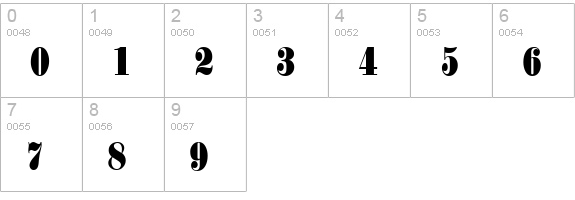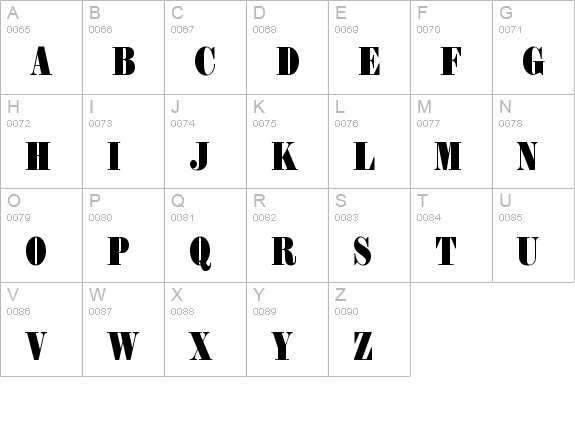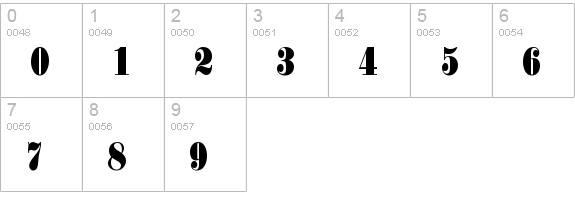
Heron-Regular Font Details
Heron-Regular is the standard, neutral variant in the Heron typeface family \xE2\x80\x94 well suited to general body text, paragraphs, and standard typographic work.
Heron-Regular is a versatile and elegant font that exudes sophistication and modernity. With its clean lines and balanced proportions, this typeface is perfect for a wide range of design projects, from branding to editorial design. The Heron-Regular font is characterized by its sleek and contemporary appearance, making it suitable for both digital and print applications. What sets Heron-Regular apart is not only its aesthetic appeal but also its accessibility - it is available for free download at FontsMarket.com. This means that designers and creatives can easily access this high-quality font without any cost, allowing for more creative freedom and flexibility in their projects. Whether you're working on a website, a poster, a logo, or any other design project, Heron-Regular is sure to elevate your work with its timeless style and versatility. Download this free font today and add a touch of sophistication to your designs.